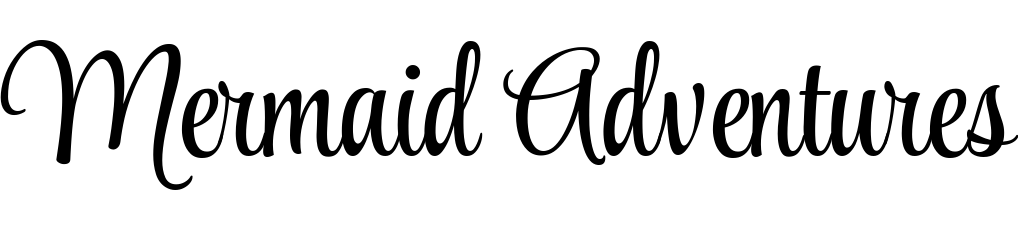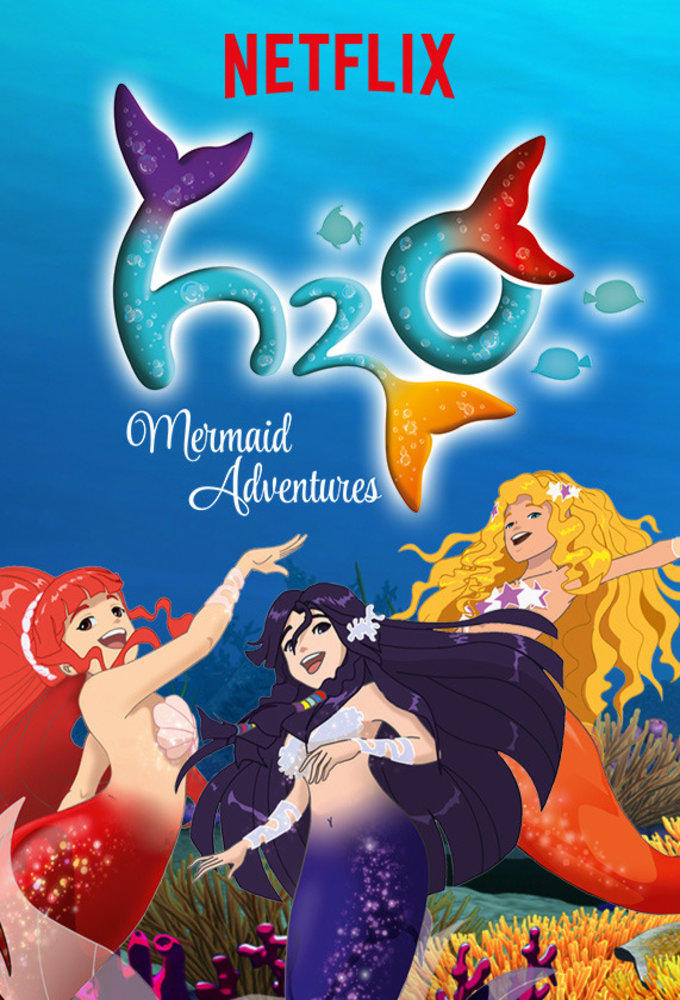
Mermaid Adventures Font
AnimationH2O: Mermaid Adventures is a 2015 animated series based on the popular Aussie show H2O: Just Add Water. This story is about three friends who are magically transformed into mermaids on a trip to a mysterious island that changes their lives forever.
Robert Leuschke's Style Script is used in the subtitle, but the capital letters M and A are not accessible without the use of open-type savvy apps. Style Script is an upright script font that takes the simple look of the 1950s and 60s advertising and combines it with modern design elements.